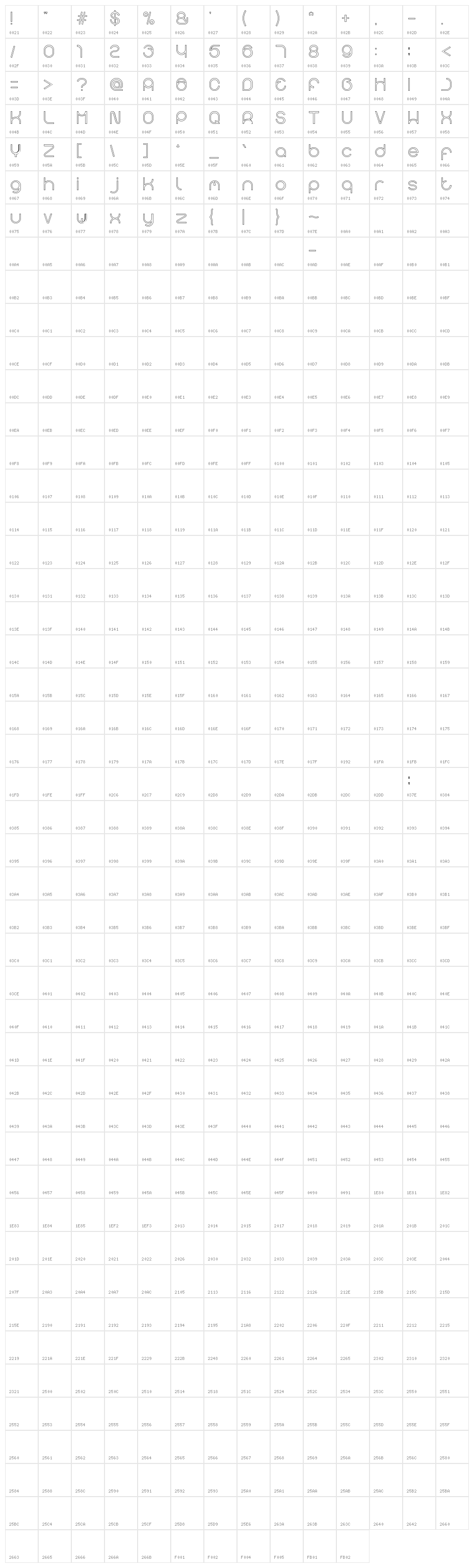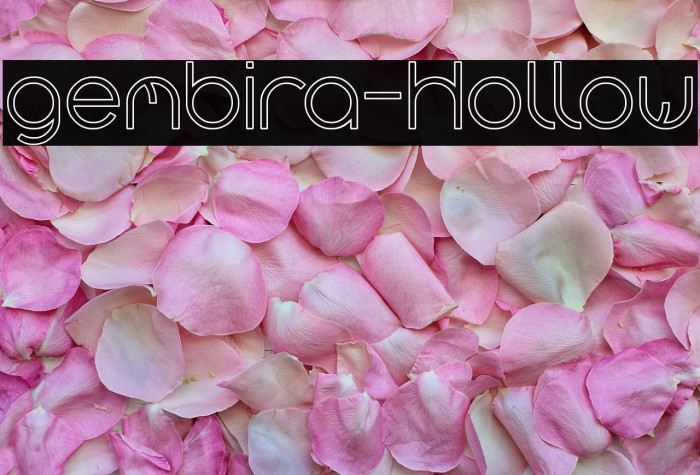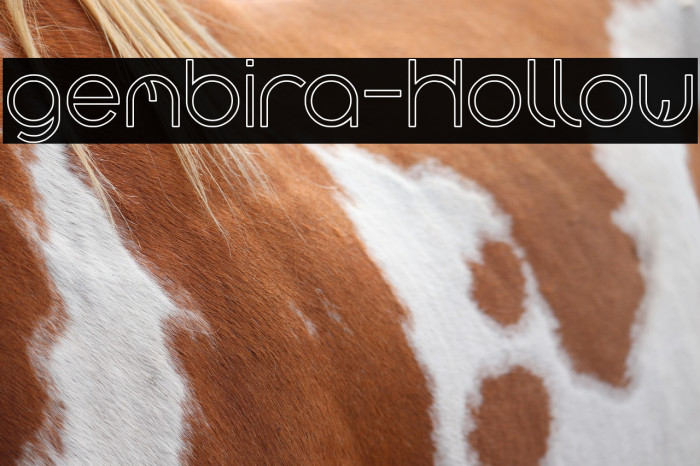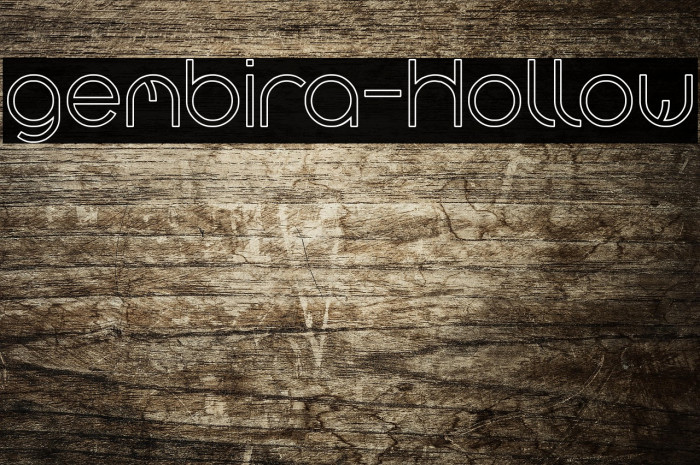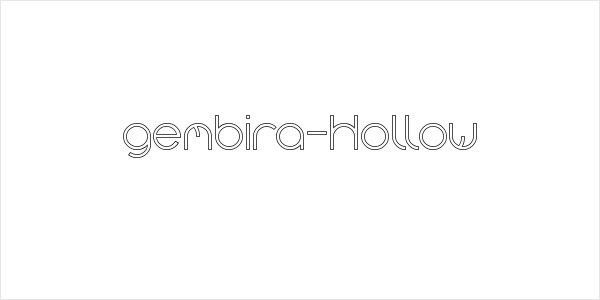
gembira-Hollow Font
gembira-Hollow Description
This font features a unique hollow design, characterized by its outlined letters that create a modern and airy feel. The geometric shapes and clean lines give it a contemporary look, making it stand out in any design. The uppercase and lowercase letters maintain a consistent style, with rounded edges and a uniform stroke width. Numbers and special characters are designed to match the overall aesthetic, ensuring a cohesive appearance across all text elements. The font's open structure allows for excellent readability, even at smaller sizes.